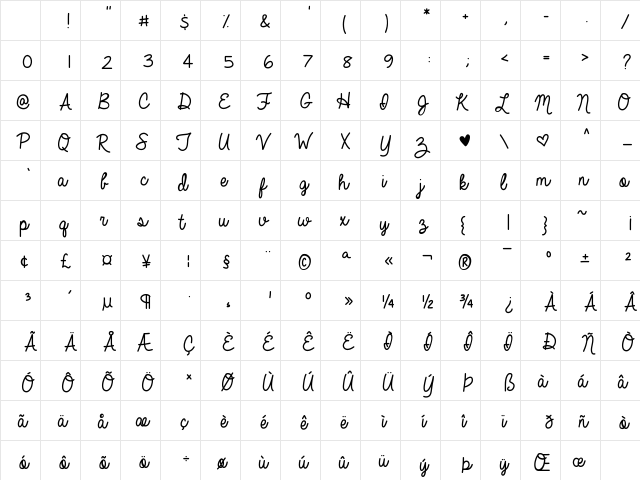
Complete Always In My Heart Regular glyph index. Displaying only characters natively supported by Always In My Heart Regular font.
Always In My Heart is a composed and adaptable typeface that performs quietly and consistently across a wide range of design contexts.